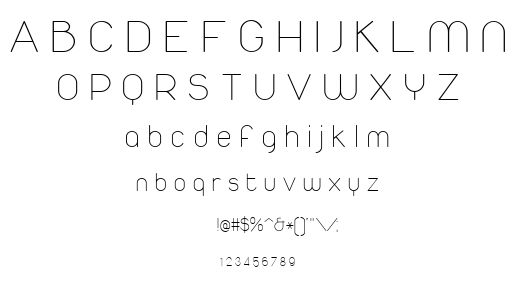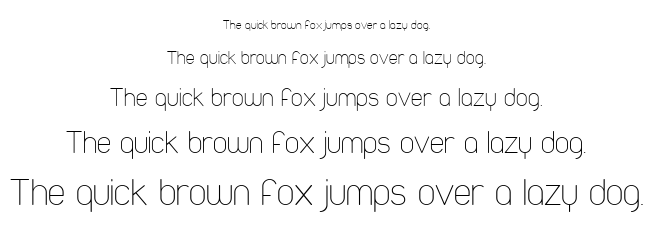
Duepuntozero Font
Duepuntozero is a rounded sans serif font created to add a contemporary touch to 2.0 logos and headlines.Inspired by the latest social networks and instant messaging applications.For commercial licence please visit our site.